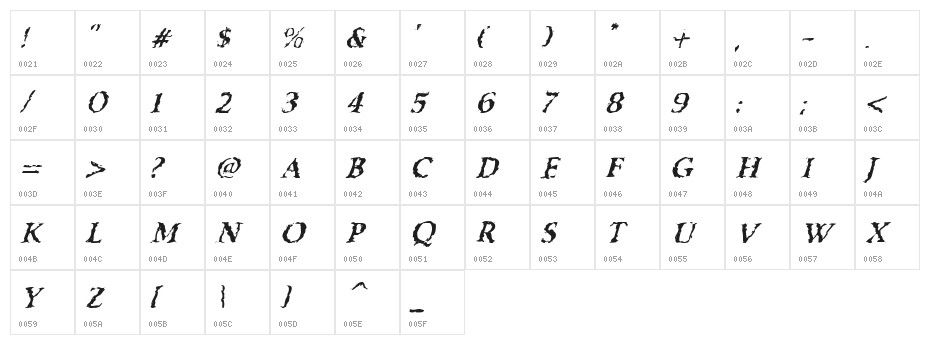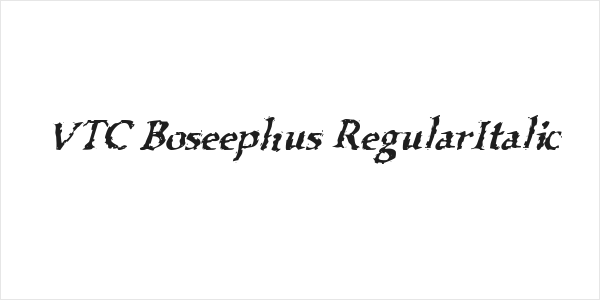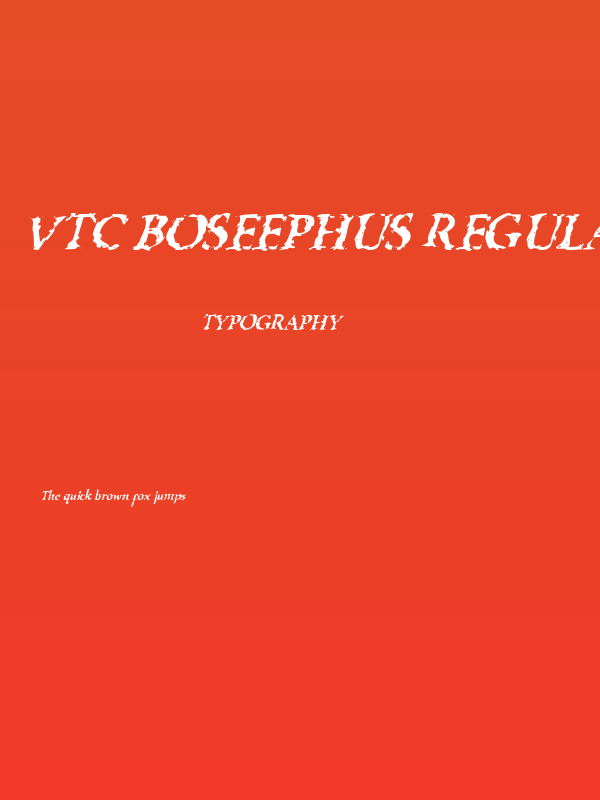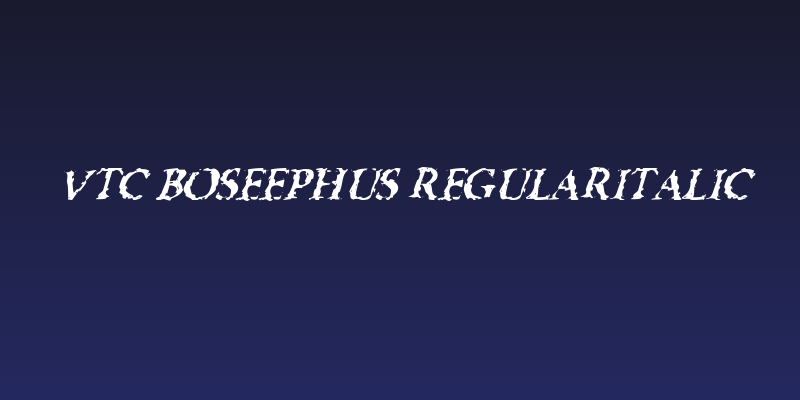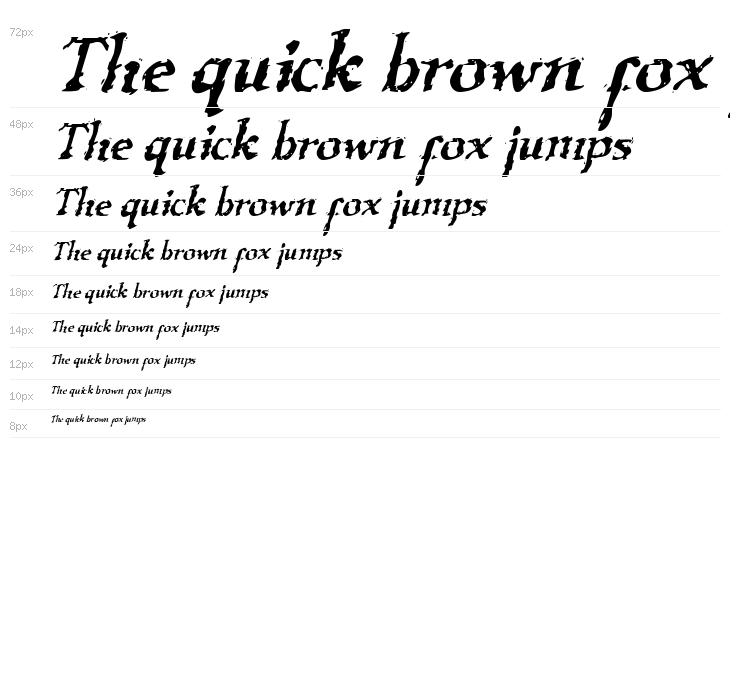
VTC Boseephus RegularItalic Font
VTC Boseephus RegularItalic Description
This font exudes a rugged and distressed aesthetic, characterized by its jagged edges and irregular strokes. The letters appear as if they have been weathered or eroded, giving them a unique, grunge-like appearance. Despite the rough texture, the characters maintain a sense of elegance and flow, particularly in the italicized form. The uppercase and lowercase letters are distinct yet harmonious, with a consistent slant that adds to the dynamic feel of the font. Numbers and special characters share the same distressed style, ensuring a cohesive look across all elements.
| Proposed Projects | Ideal for projects requiring a bold, edgy look such as album covers, posters, or branding for alternative or rock-themed events. |